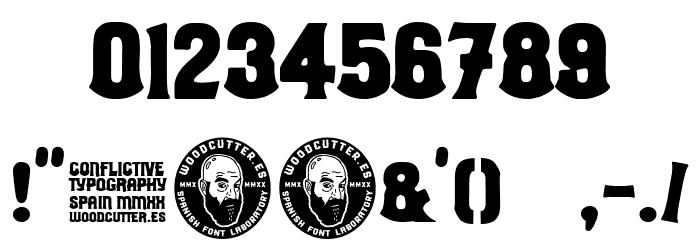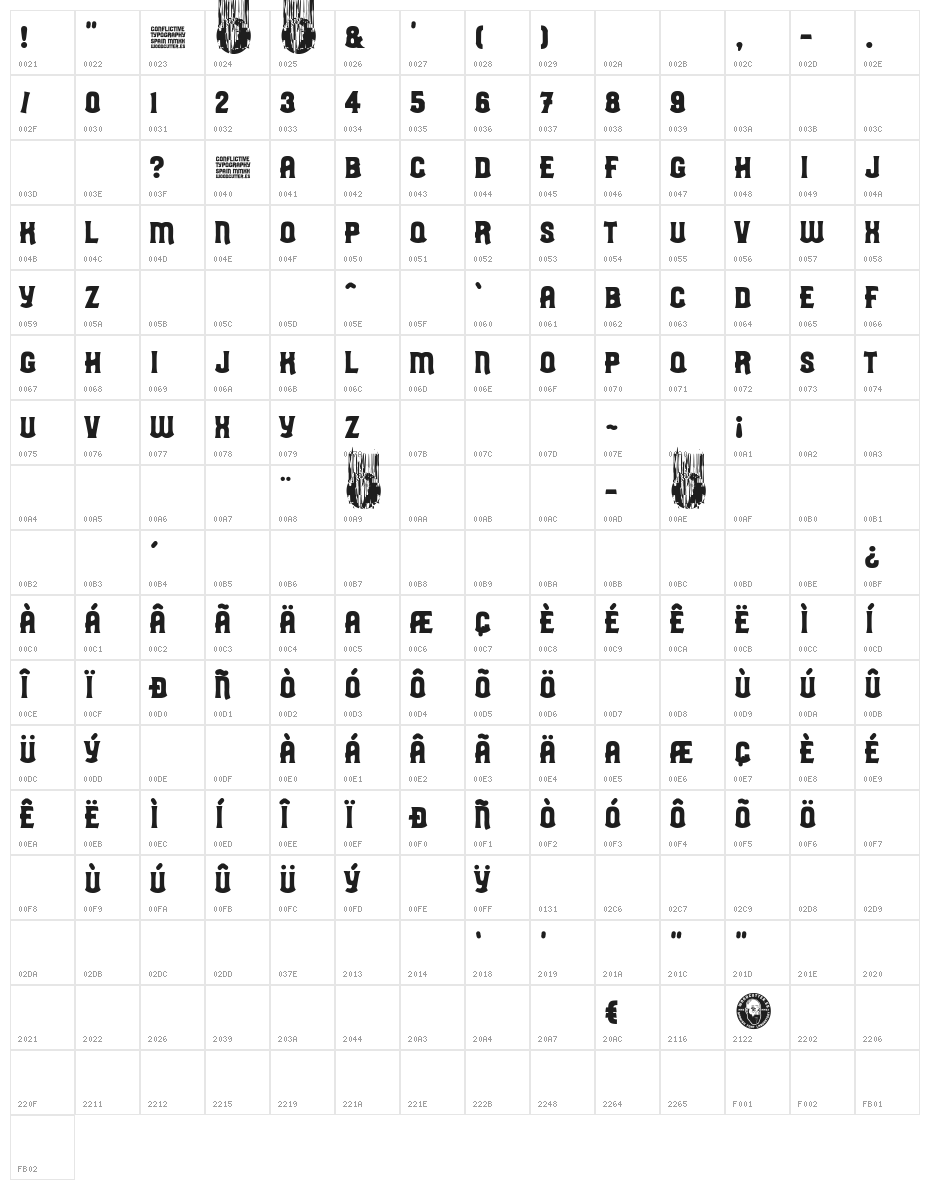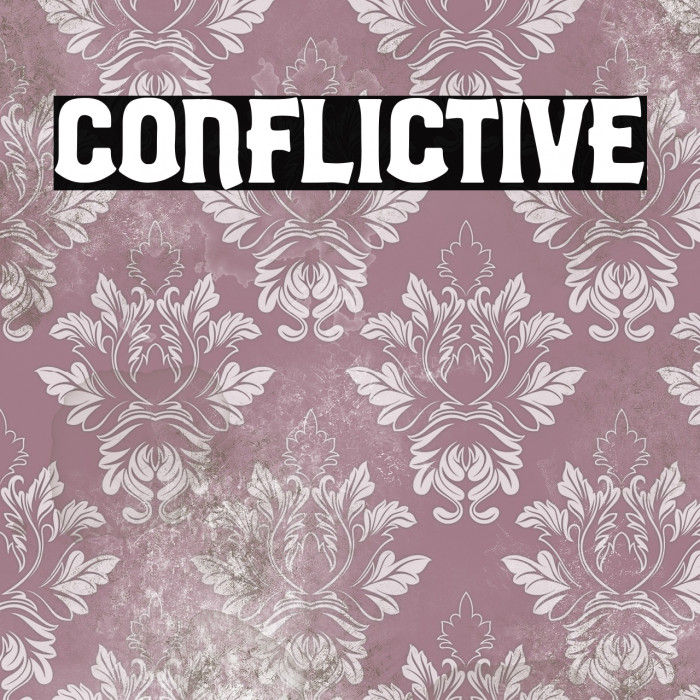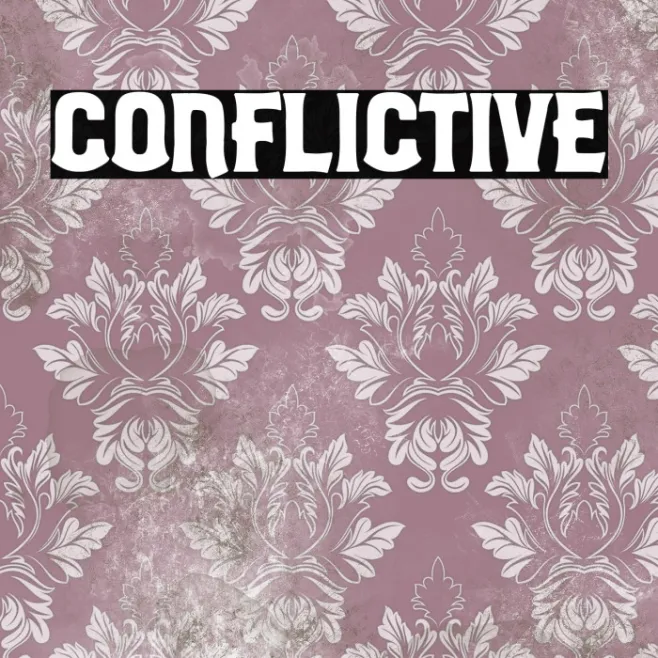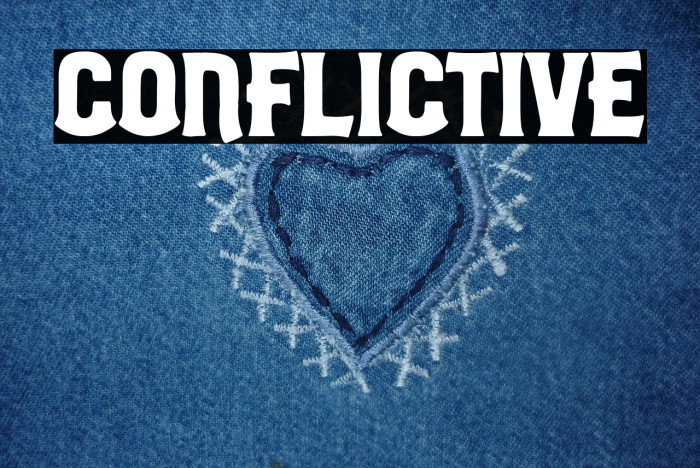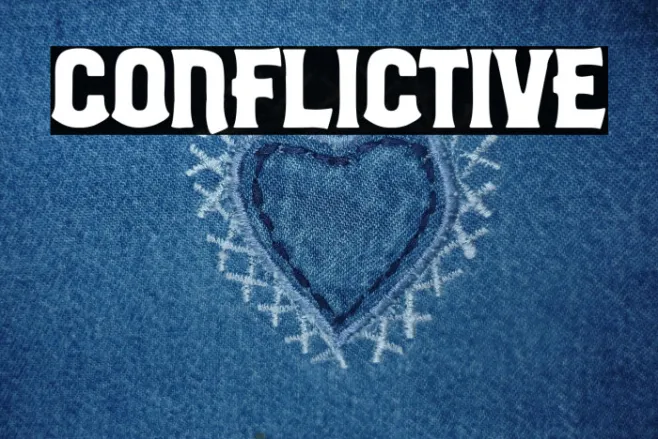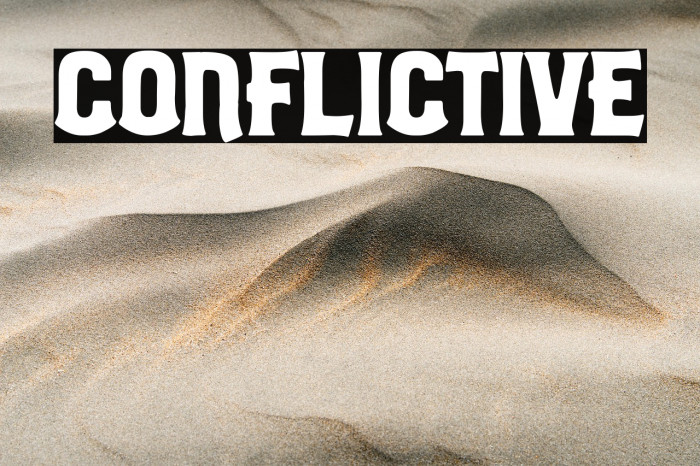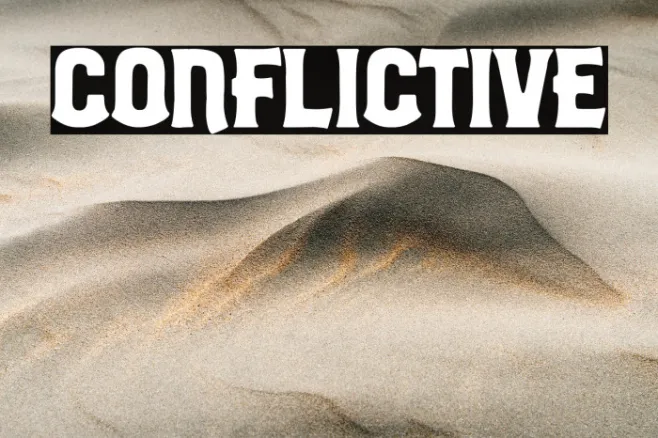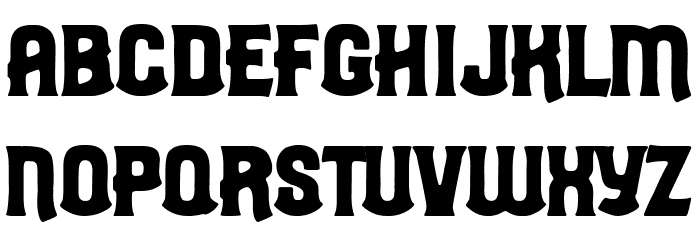
conflictive Font
conflictive Description
This font features a bold and striking design with a unique, slightly distorted appearance that gives it a playful yet assertive character. The uppercase and lowercase letters maintain a consistent thickness, creating a strong visual impact. The numbers and special characters are designed to match the boldness of the letters, ensuring a cohesive look across all elements. The font's style is reminiscent of vintage poster typography, with a modern twist that makes it suitable for contemporary designs. Its bold presence makes it ideal for attention-grabbing headlines and logos.
| Overall Style | Vintage, Modern |
| Proposed Projects | Ideal for posters, logos, branding, and any project requiring a bold, eye-catching typeface. |